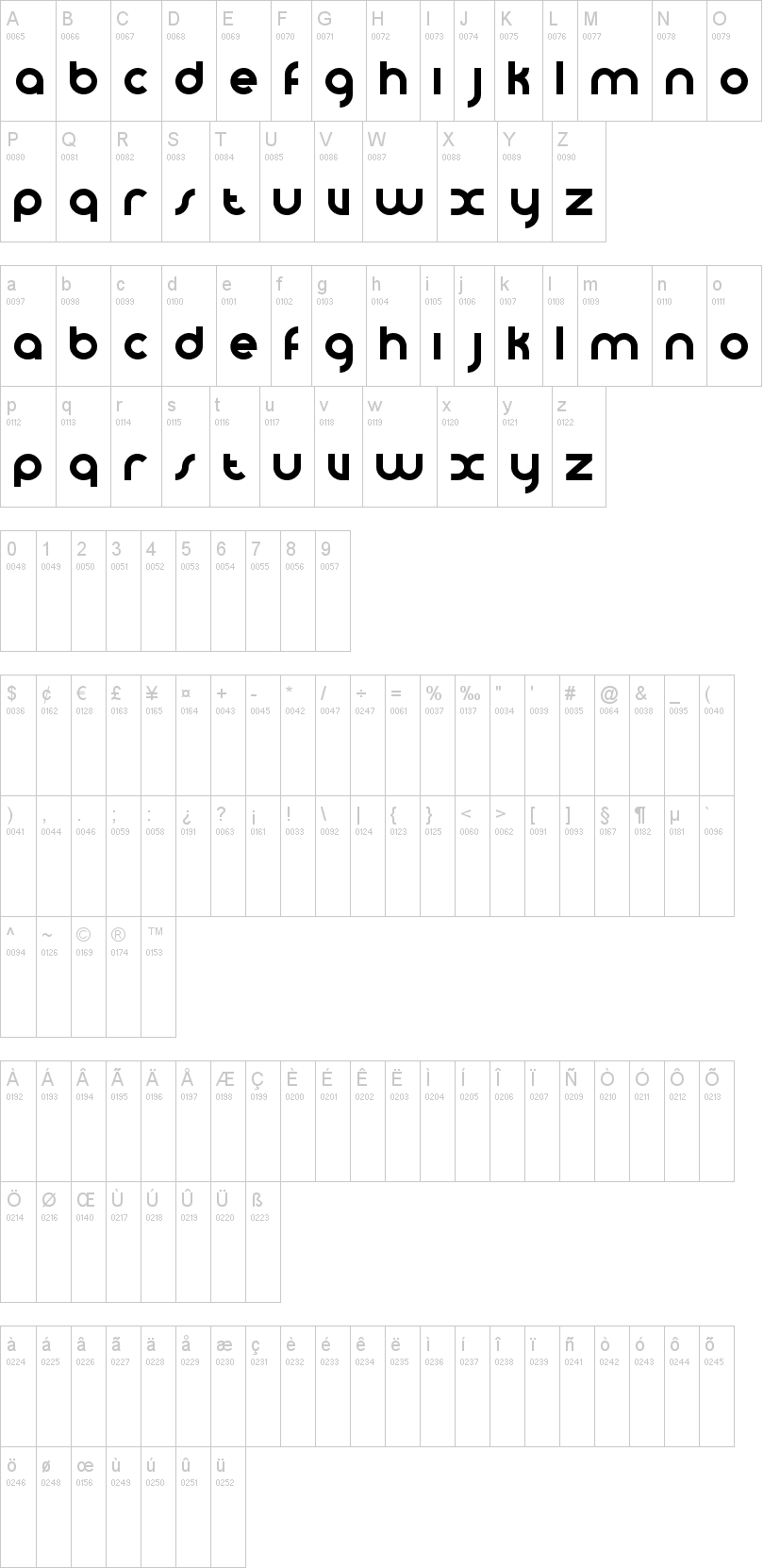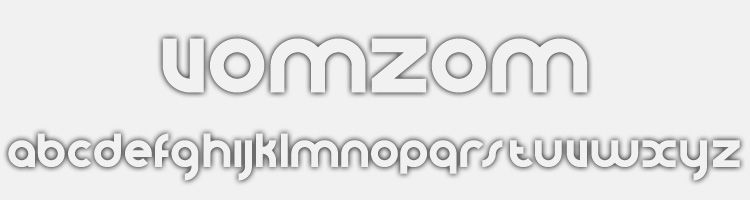
Шрифт VomZom
Vomit Zombie is a clothing label I am working on with Ekon. The VomZom font came about while trying to come up with a logo for the label.